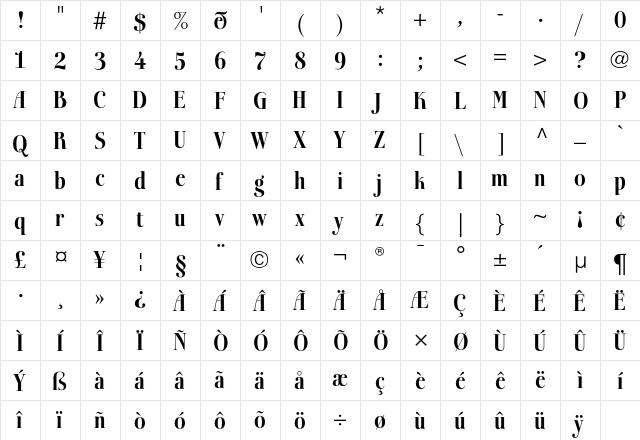
BoberiaLL Bold Font Preview
BoberiaLL Bold
BoberiaLL Bold Font Details
Design Context for BoberiaLL Typeface
BoberiaLL takes a measured approach to typography — its balanced proportions and neutral character make it a reliable workhorse for both digital and print work. Its bold stroke weight gives it real presence on the page.